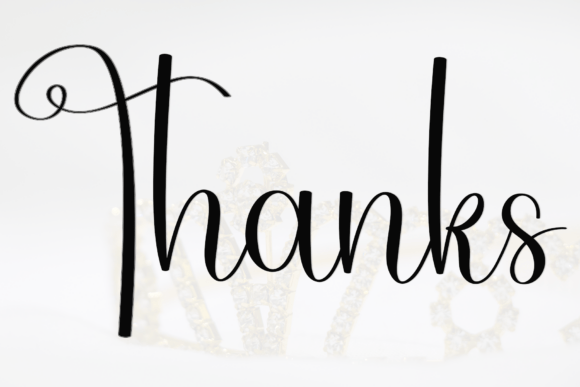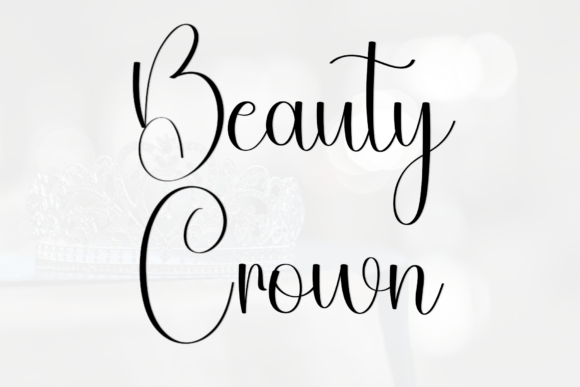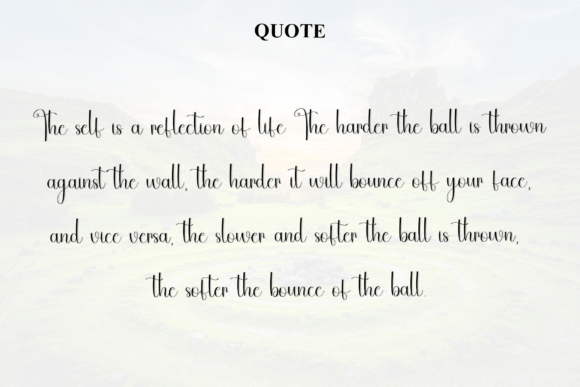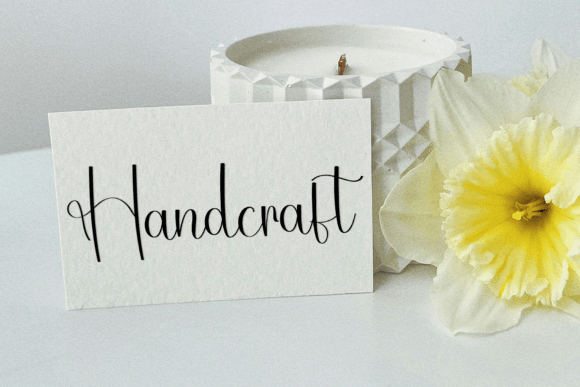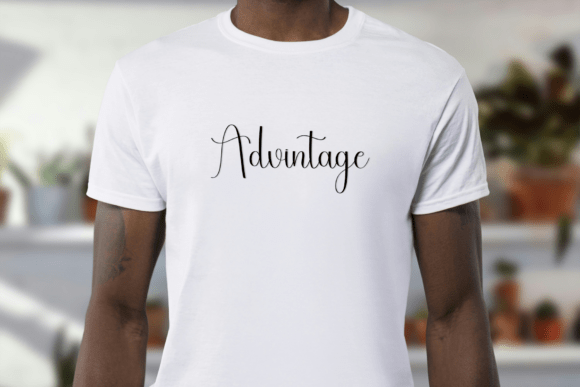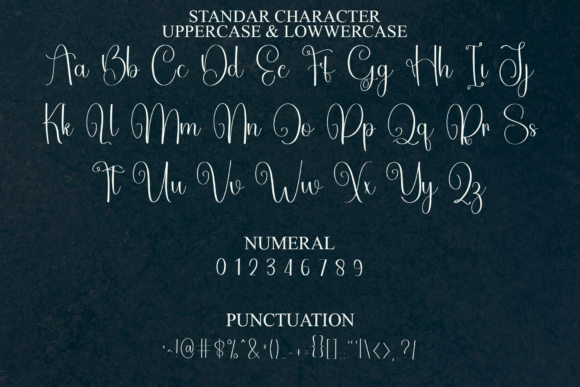
Introduction to Queen Crown Font
Have you ever found yourself stuck in a design rut, searching for the perfect font to elevate your creative project? As a designer, I’ve been there too. That’s when I stumbled upon the Queen Crown Font, a stunning and versatile font that has become a game-changer in my design workflow. With its unique strokes and soft touch, this font adds a special character to any design, making it perfect for a wide range of creative projects.
Key Features of Queen Crown Font
- Unique Regal Design: The Queen Crown Font features an elegant, ornate design perfect for creative projects that require a touch of luxury and sophistication.
- High-Quality Graphics: The font comes in high-resolution graphics, ensuring that it looks crisp and clear on various devices and screens.
- Perfect for Royalty and Luxury Themes: The Queen Crown Font is ideal for creative projects related to royalty, luxury, and high-end themes, such as wedding invitations, logos, and branding materials.
Honest Review: Queen Crown Font
Here are some of the things that work well with the Queen Crown Font:
- High-quality design: The font is well-crafted and looks professional, making it perfect for any design project.
- Transparent background: This feature is super handy for designs where you need a lot of flexibility.
- Unique style: The Queen Crown Font has a distinctive look that sets it apart from other fonts.
- Limited character set: The font only includes a limited set of characters, which may not be suitable for longer text-based projects.
Overall, I was impressed with the Queen Crown Font. It’s a great design resource for anyone looking for a high-quality, unique font for their creative project. While it may have some limitations, it’s definitely worth considering for your next design endeavor.
The Queen Crown Font is a high-quality design resource ideal for various creative projects. This font features a unique and elegant design, making it perfect for royal-themed projects or any occasion where you want to add a touch of luxury.
To get the most out of the Queen Crown Font, use it with a transparent background to create a regal and sophisticated look. Experiment with different font sizes and styles to add depth and visual interest to your design.
The Queen Crown Font is perfect for:
- Monarch-themed projects
- Formal event invitations
- Personalized gifts and stationery